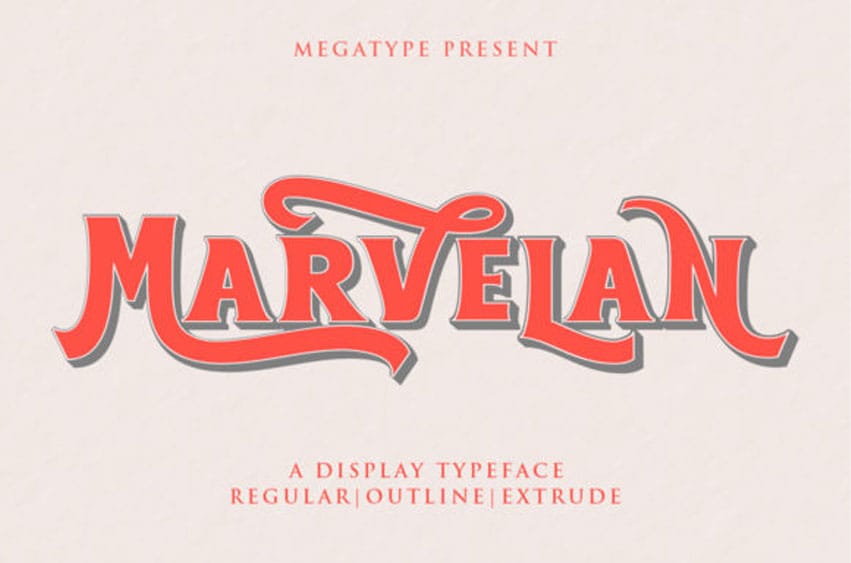
Marvelan Font is a bold and unique display font.
It is suitable for any branding, product packaging, invitation, quote, t-shirt, label, poster, logo that you wish to develop.